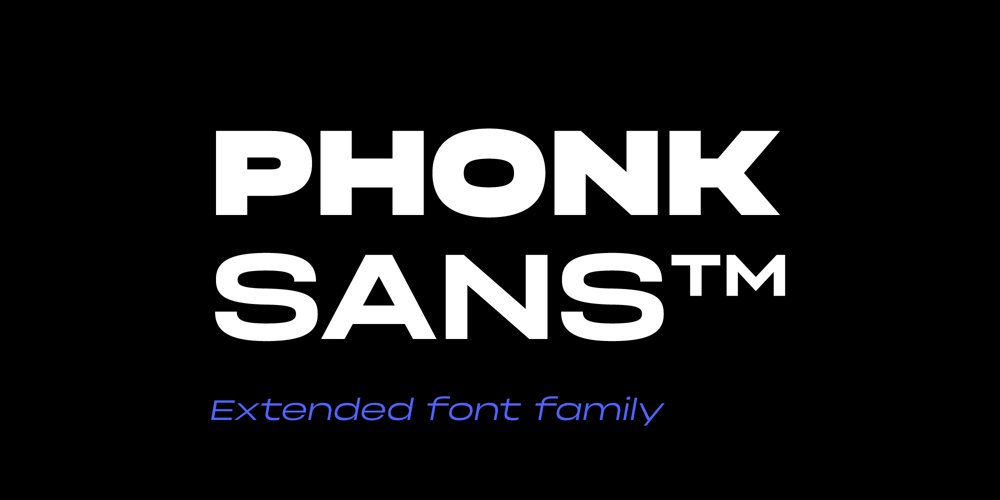
Phonk Sans
Phonk Sans font
Phonk Sans Font Family was designed by Slava Antipov and published by Slava Antipov. Phonk Sans contains 20 styles and family package options. Phonk Sans is a modern font family consisting of 10 weights and their italic versions. The features of the typeface are the broad large character shapes.Strong and confident grotesque is ready to become a mainstay of your project. The number of weights of the font makes it versatile, which allows you to cover a wide range of tasks: logo, packaging, advertising, branding and anything else.Phonk Sans supports Latin and Cyrillic, has various OpenType features such as ligatures, alternate glyphs, fractional numbers and others.